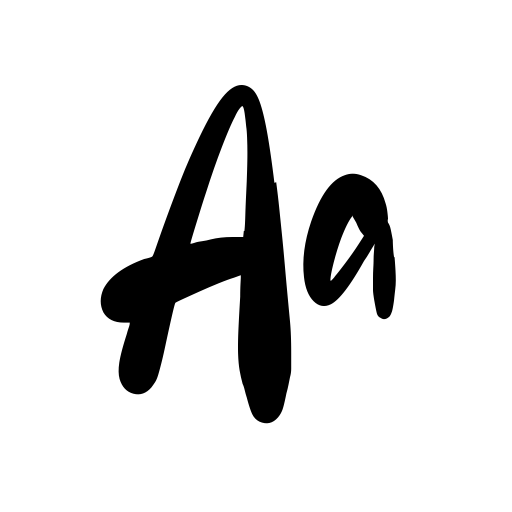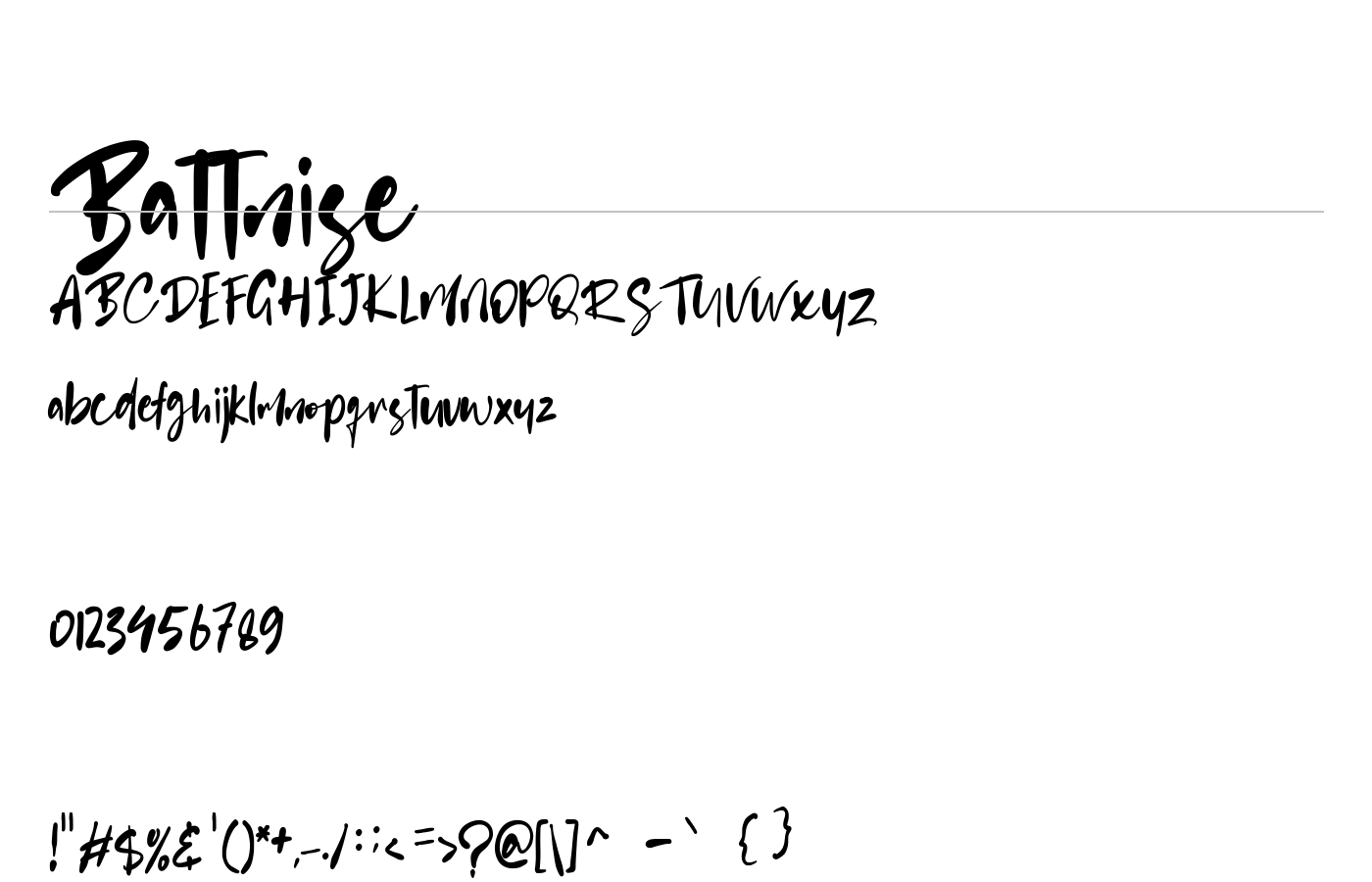
Battnise is a lively handwritten script font with a casual and friendly feel, featuring varied stroke widths and slightly irregular shapes that add personality and warmth. Its tall x-height and playful letterforms make it ideal for creative projects, branding, and packaging that seek an inviting and personal touch. This font works well in headlines, logos, and expressive designs where a natural, approachable style is desired.
Battnise Font
About Battnise Font